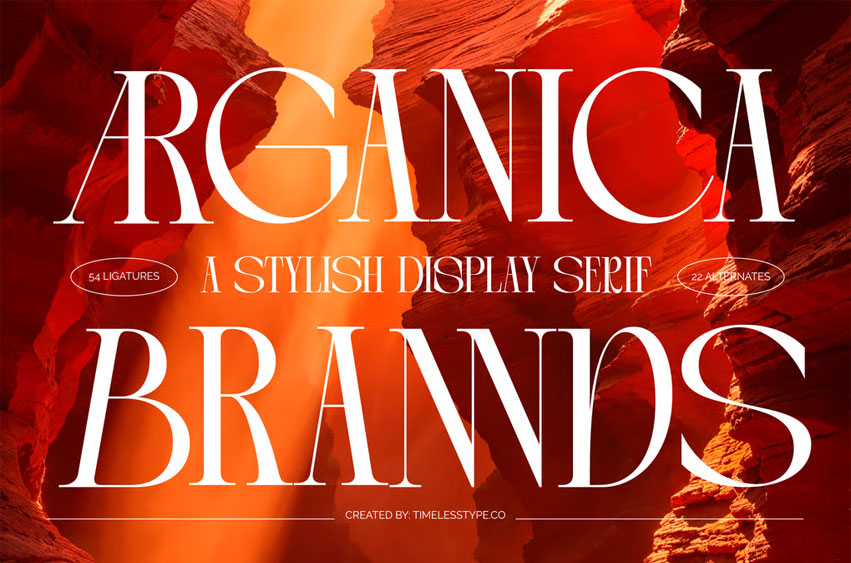
Arganica Brannds Font is a stylish display serif font that merges refined luxury with bold sophistication. With 54 ligatures and 22 alternates, this typeface was crafted to make a statement — perfect for branding, editorials, logo design, posters, and high-end packaging projects.
Inspired by modern elegance and timeless form, Arganica Brands combines slender strokes and graceful proportions to achieve a dramatic, editorial look. Each letter radiates poise and confidence, making it a versatile font for projects that demand premium quality and aesthetic appeal.